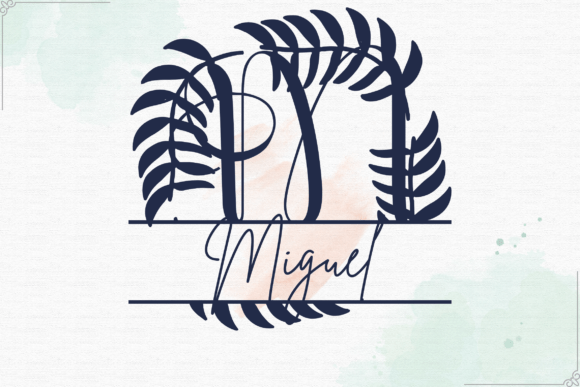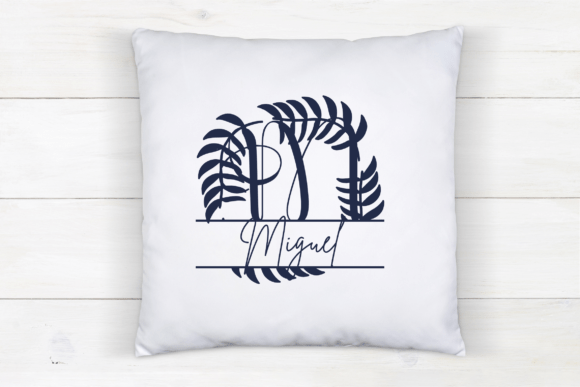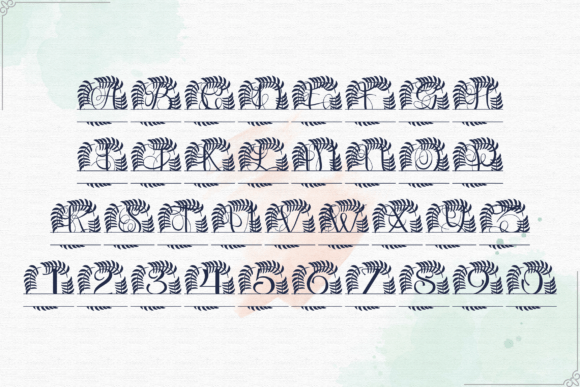
A Creative’s Dream Come True: Elevate Your Designs with Aristova Split Monogram Font
Imagine yourself surrounded by endless possibilities, surrounded by blank canvases, and the thrill of creating something truly unique. As you sit down to design a wedding invitation, a logo, or a gift tag, you’re met with a multitude of font options. But then, you stumble upon Aristova Split Monogram Font – and your creative world is forever changed.
Aristova Split Monogram Font is a sophisticated serif font designed with elegance and customization in mind. Its refined detailing and clean horizontal split make it the perfect choice for adding names, dates, or custom messages to your designs. Whether you’re a seasoned designer or a hobby crafter, this font offers unparalleled versatility and flexibility, allowing you to achieve a balance of beauty and function in your projects.
With its smooth compatibility across major platforms, including Canva and Adobe Creative Cloud, Aristova Split Monogram Font is an invaluable addition to any designer’s toolkit. Whether you’re working on a high-end branding project or a personalized craft, this font is sure to elevate your designs and leave a lasting impression.
Aristova Split Monogram Font Key Features
- Font Type: Script, Monogram
- Unique Characteristics: Elegant, cursive script with a unique split monogram design, perfect for creating personalized and stylish text
Aristova Split Monogram Font Review
I recently had the chance to work with the Aristova Split Monogram Font, and I must say it’s an interesting addition to any design project. ✨ The font’s unique split monogram style is sure to grab attention and add a touch of sophistication to any visual element.
- ✨ The font is highly customizable, with various options to adjust the monogram layout, spacing, and alignment. This flexibility makes it perfect for designers who want to create unique and personalized designs.
- ✨ The font is well-suited for formal and luxury branding, making it ideal for high-end fashion, jewelry, or hospitality projects.
- ✨ The font is available in various languages, including Cyrillic and Latin scripts, making it a great choice for international branding.
However, there are a few limitations to consider. ⚠️ The font may not be suitable for projects that require a more playful or casual tone, as its formal style may come across as too stuffy. Additionally, the font may require some adjustments to fit certain design systems or templates.
Overall, I think the Aristova Split Monogram Font is a solid addition to any designer’s toolkit. While it may not be the best fit for every project, its unique style and customization options make it a great choice for designers who want to create high-end, luxury branding. With a little creativity and experimentation, I’m sure you’ll be able to unlock the full potential of this font.
The Aristova Split Monogram Font is ideal for creating elegant and sophisticated designs, such as:
– Business branding and logos
– Personalized gifts and stationery
– Fashion and beauty branding
To get the most out of the Aristova Split Monogram Font, try combining it with other elegant fonts, using it in bold and italic styles, and experimenting with different font sizes and colors.